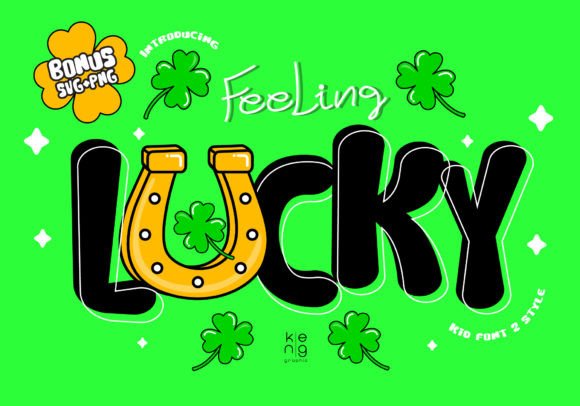
Introducing Felling Lucky Font, the Best Font for Stitched Cards by Keng Graphic. This display font is one of a kind, with a unique design that will make everything you write stand out. The font family is perfect for adding a touch of creativity and youthfulness to any project.
Felling Lucky Font is perfect for comic book-style projects, online games, and love shirts. The font is ideal for creating posters, movie titles, and eye-catching social media posts. Its distinct style makes it perfect for anything that requires courage and boldness.
Felling Lucky Font is not only visually appealing, but it also adds an emotional aspect to your projects. Its unique design and boldness will make your message stand out, evoking emotions of excitement, passion, and courage.
With Felling Lucky Font, you can create stunning designs that will make an impact on your audience. Add a touch of creativity to your next project and see the difference it makes.